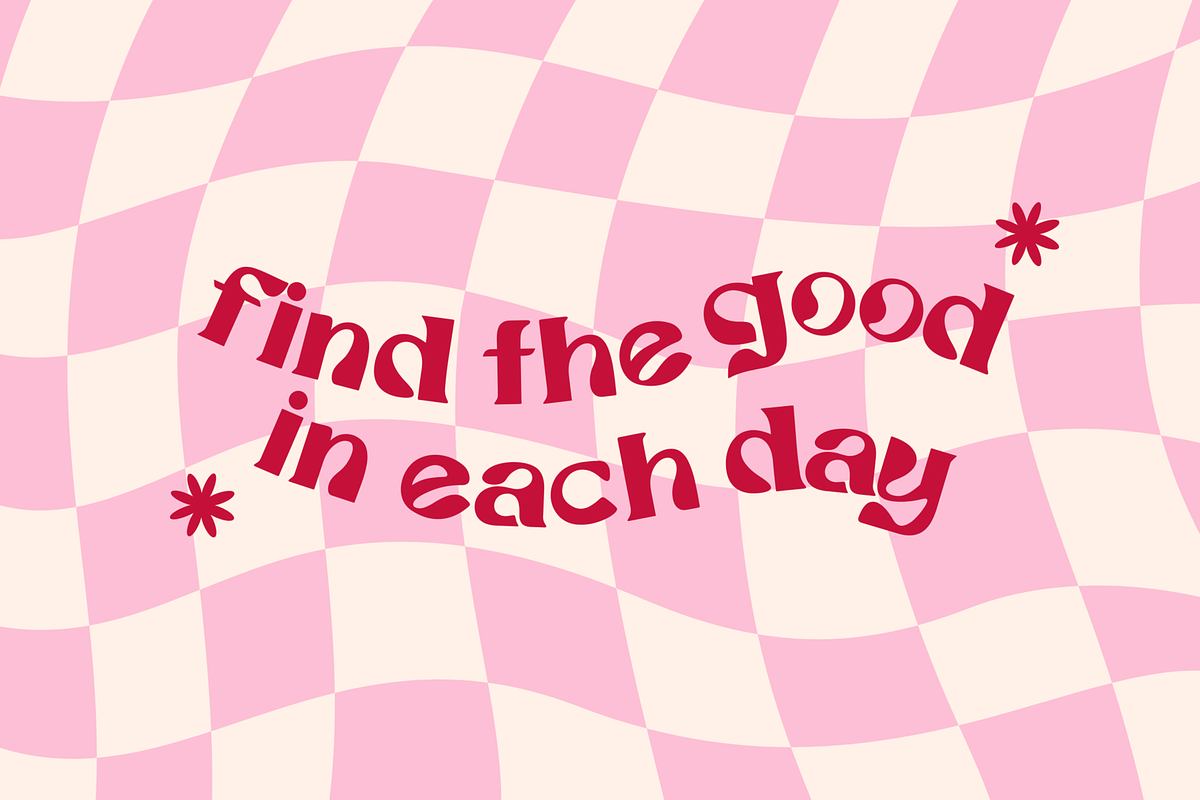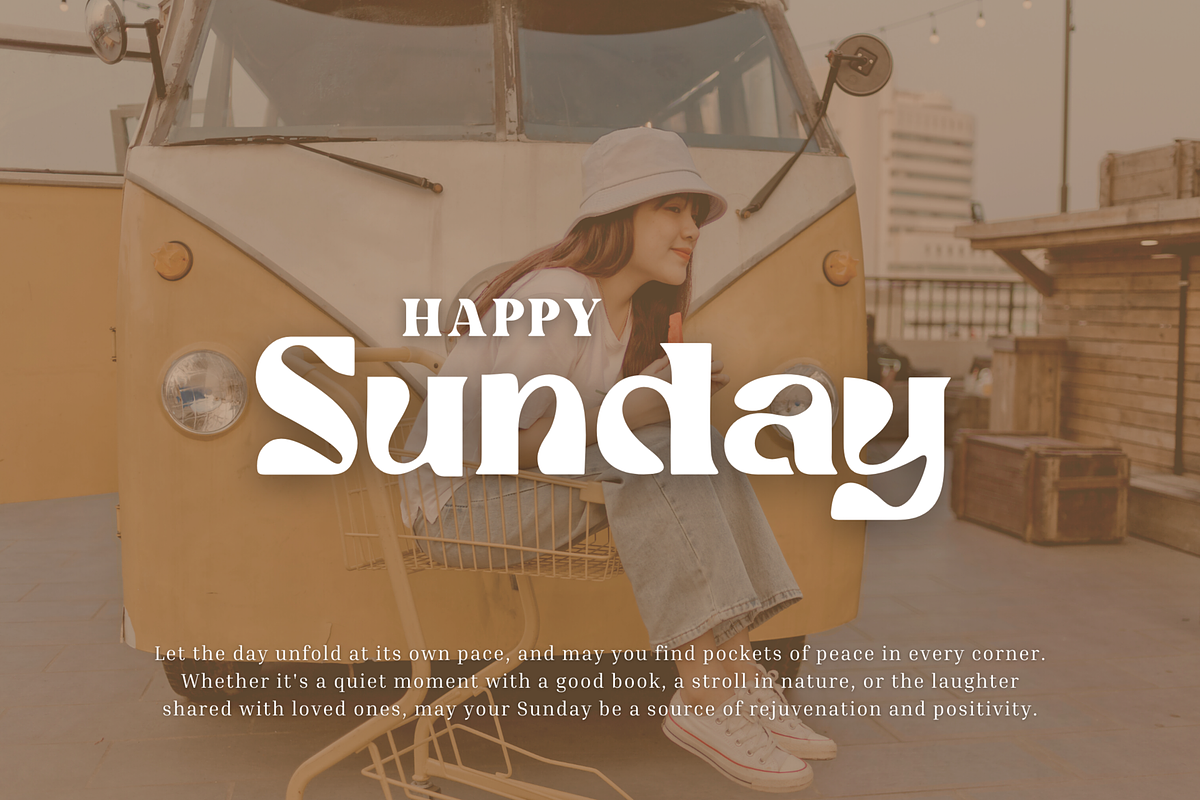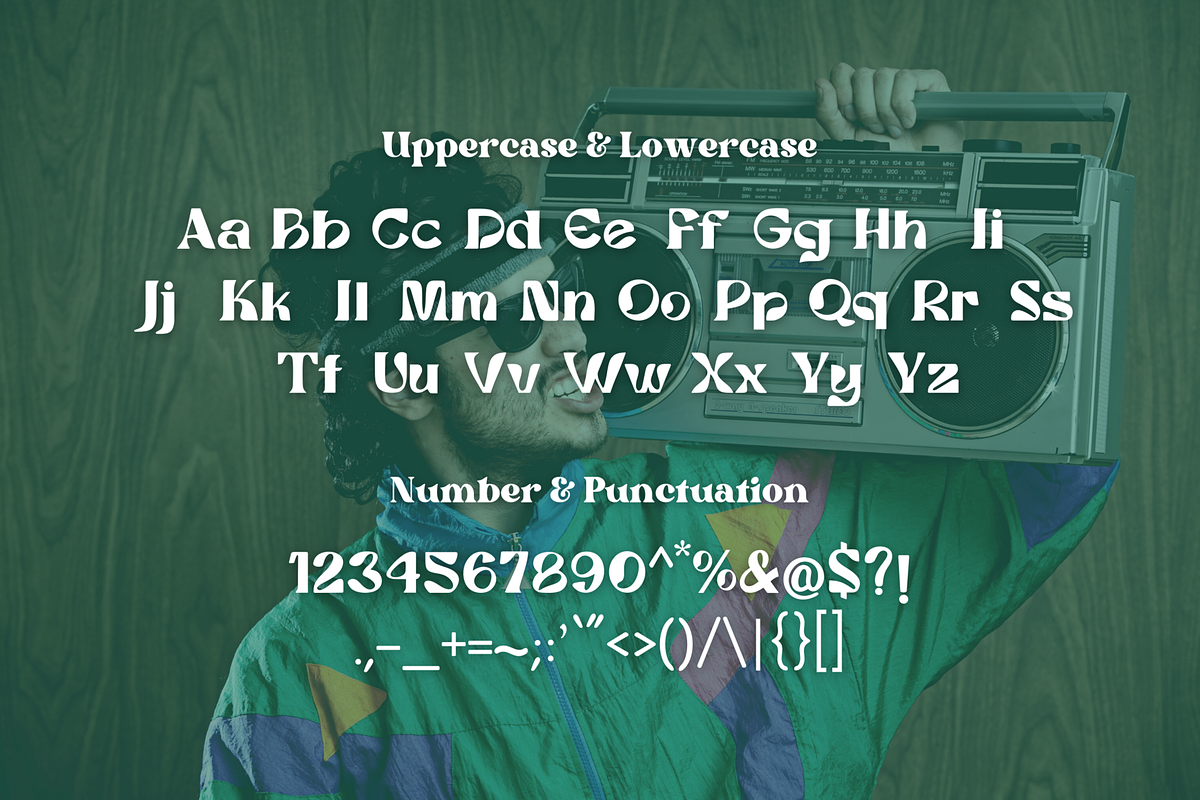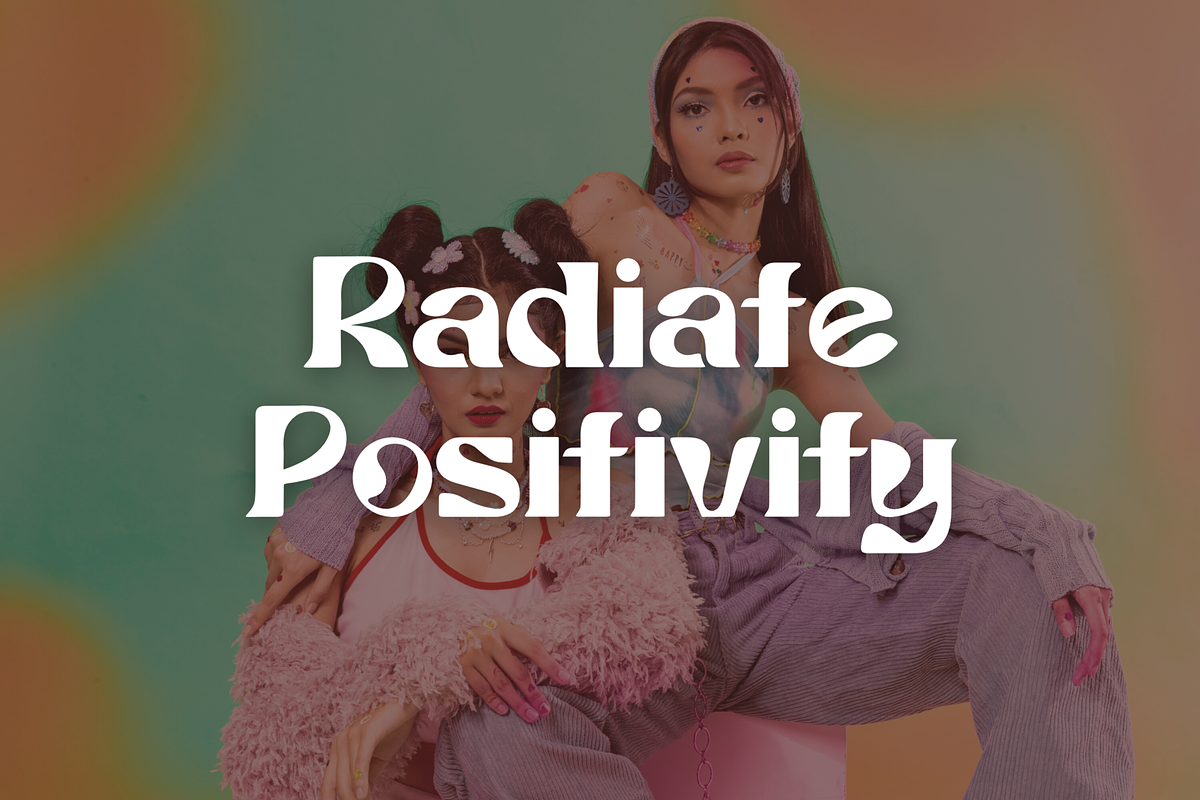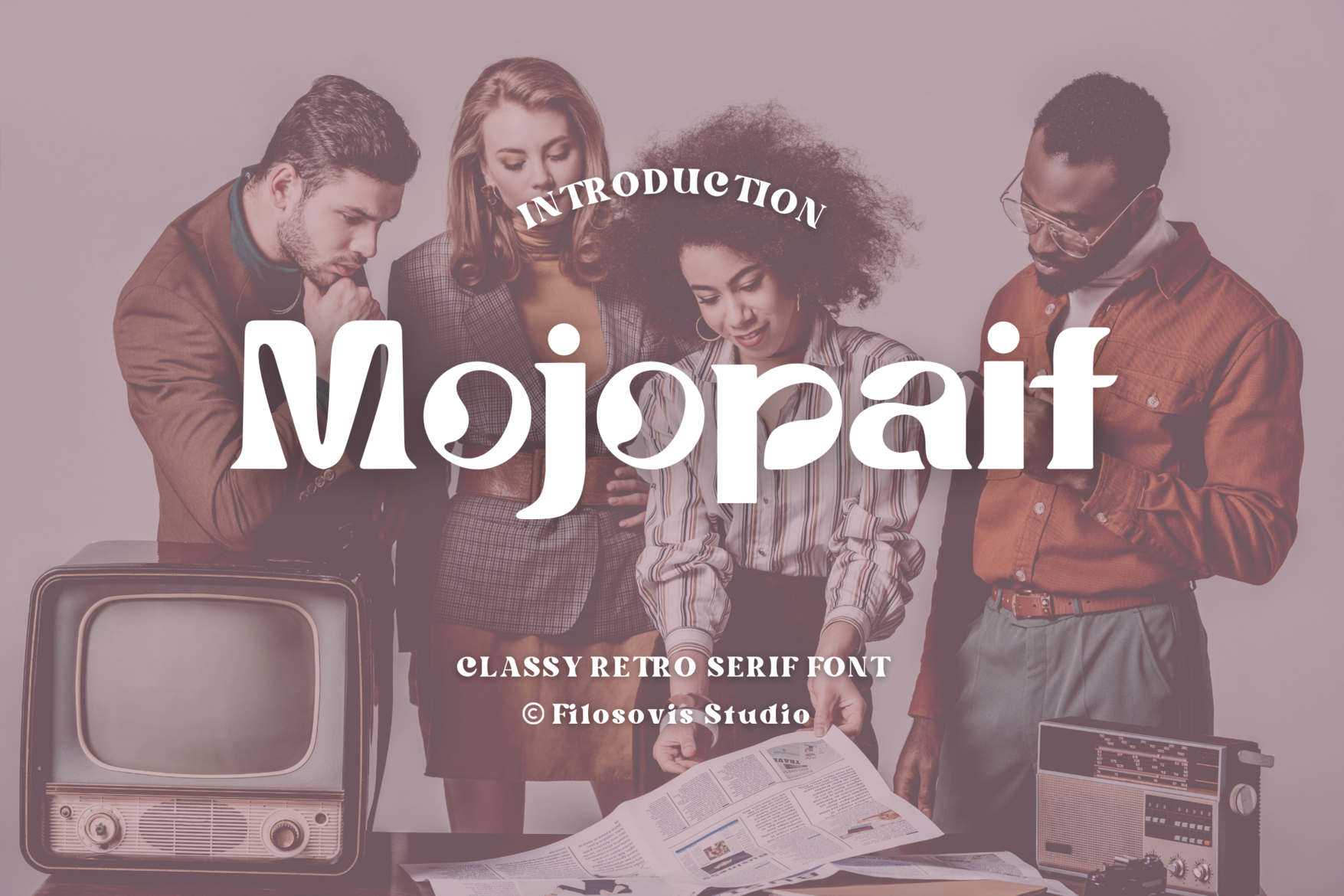
Mojopait | Classy Retro Serif Font
Mojopait font is characterized by a classy retro serif font with modern letter design. The classy retro serif font style also adds a simple and attractive feel that is approachable, making it a friendly and attractive choice for any project.